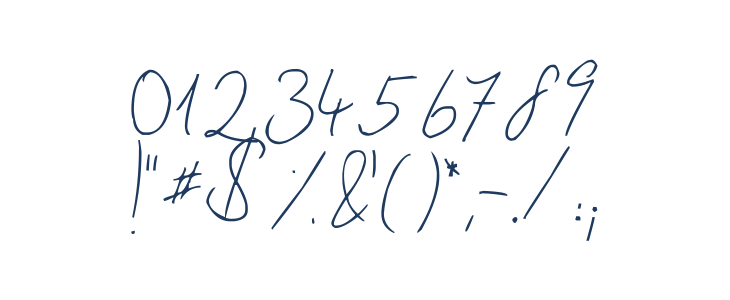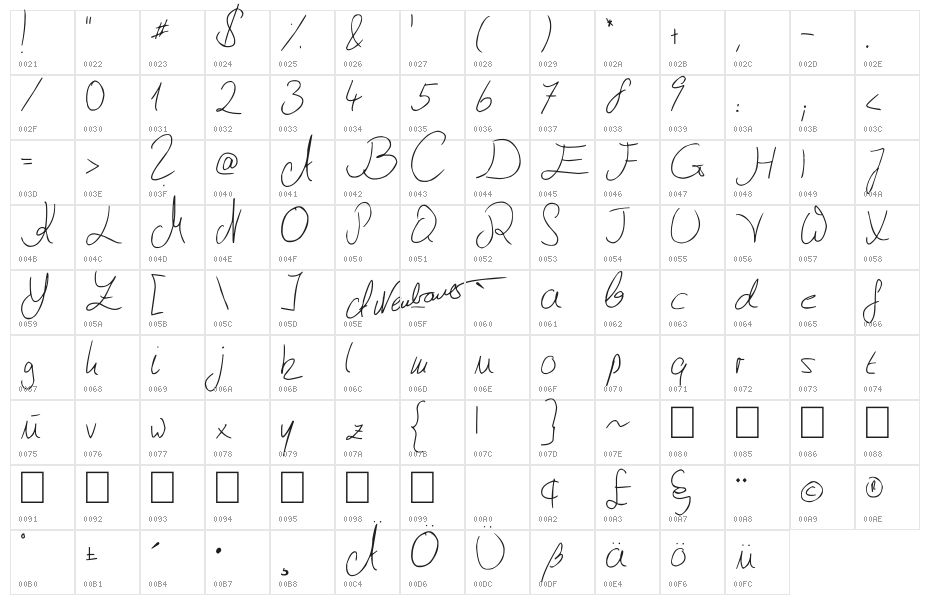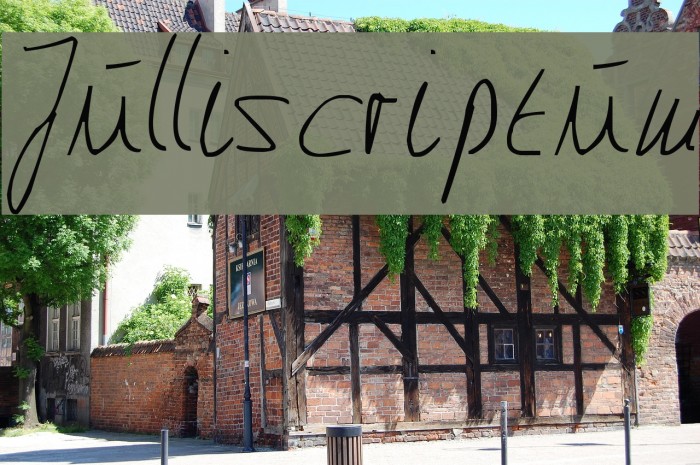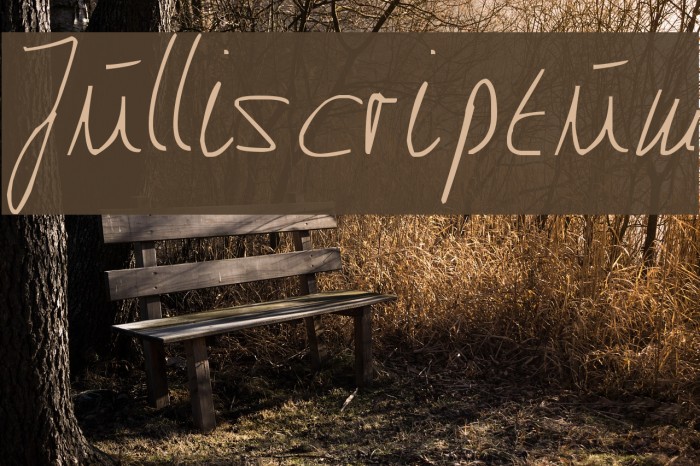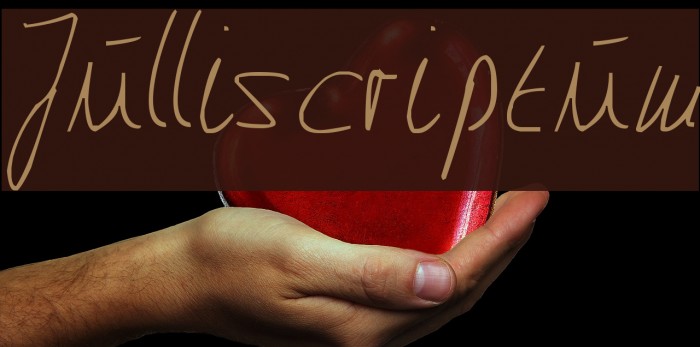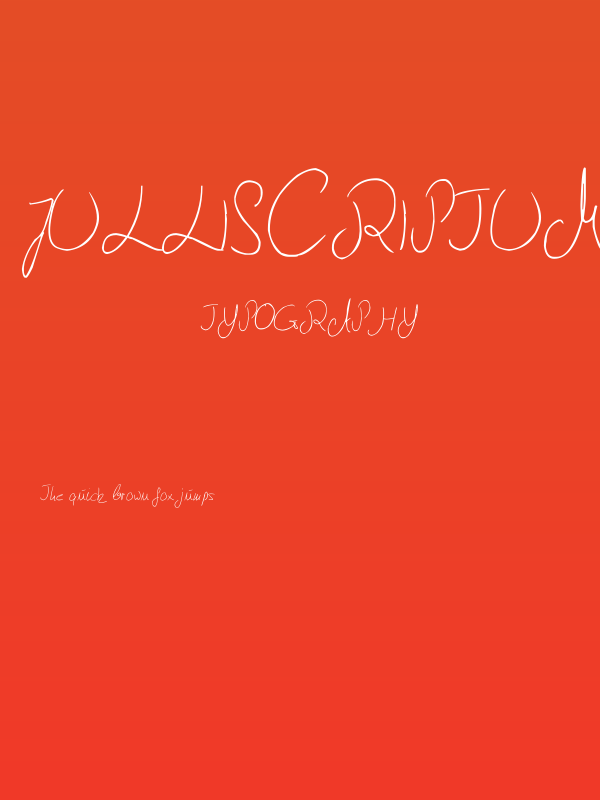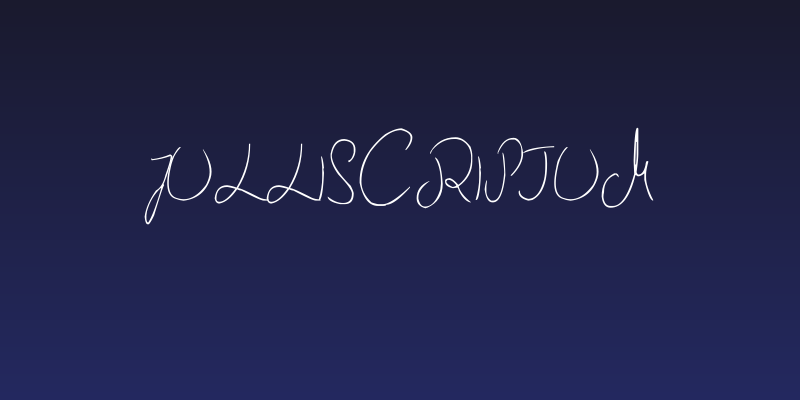
Julliscriptum Font
Julliscriptum Description
This font features an elegant and flowing script style, characterized by its smooth, cursive strokes and a handwritten appearance. The uppercase letters are slightly more embellished, with graceful loops and swirls that add a touch of sophistication. The lowercase letters maintain a consistent flow, enhancing readability while retaining a personal, artistic flair. Numbers and special characters are designed to match the overall aesthetic, ensuring a cohesive look across all text elements. The font's delicate lines and curves make it ideal for projects that require a personal or artistic touch.
| Overall Style | Elegant, Artistic |
| Use Case | Invitations, Personal branding, Artistic projects |
| Proposed Projects | Ideal for wedding invitations, greeting cards, personal branding, and artistic projects. |